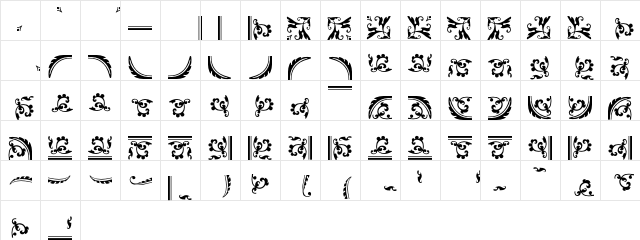
FleuronsGranjon Regular Font Preview
FleuronsGranjon Regular
FleuronsGranjon Regular Font Details
Design Context for FleuronsGranjon Typeface
FleuronsGranjon is a composed and adaptable typeface that performs quietly and consistently across a wide range of design contexts.